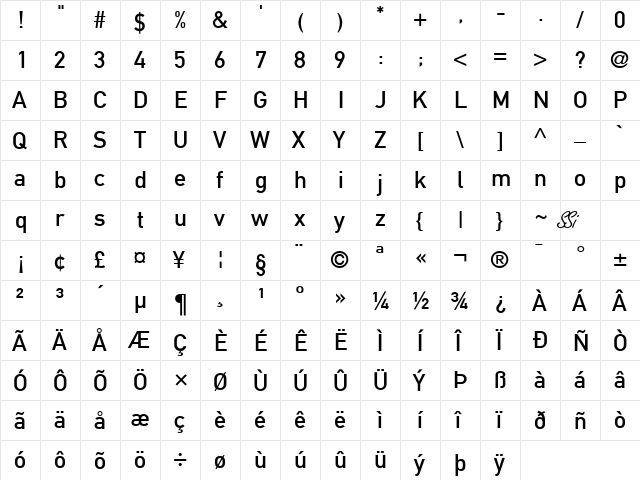
Reducto SSi Regular
Design Context for Reducto SSi Typeface
Reducto SSi is a composed and adaptable typeface that performs quietly and consistently across a wide range of design contexts.